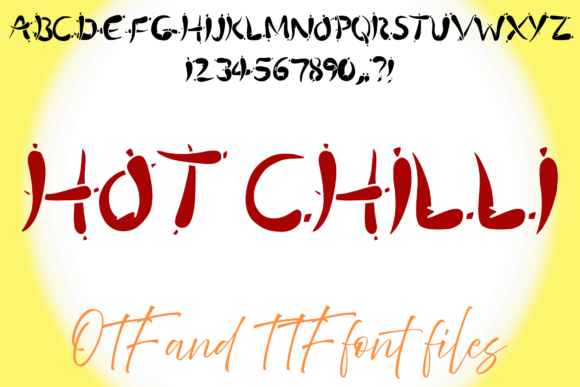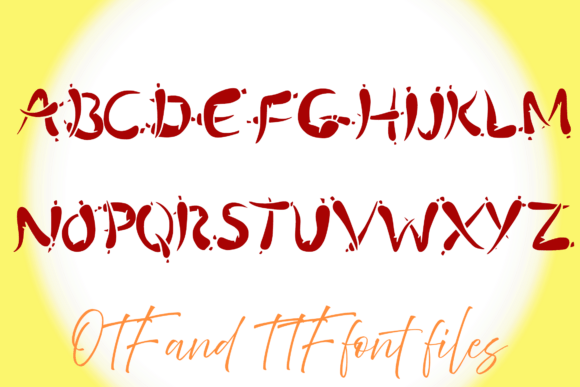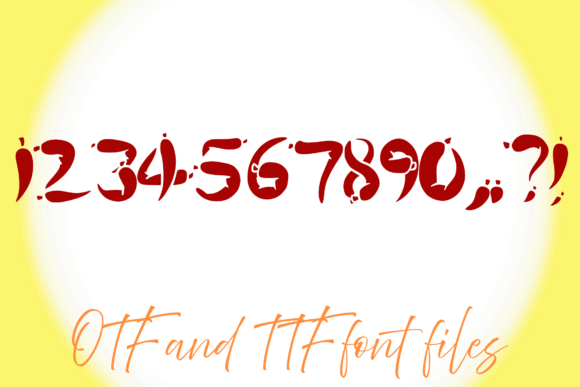
Hot Chilli Font
About the Hot Chilli Font
Explore the possibilities with Hot Chilli Font, a font that offers both beauty and functionality. 🔥 Hot Chilli is a sizzling display font inspired by the shape and heat of chili peppers. With its sharp tips, bold curves, and edgy design, this font brings spicy energy to your titles, food branding, posters, and anything that needs a flavorful kick. Ideal for culinary creatives, bold packaging, and fiery headlines. Available in OTF and TTF formats.
Hot Chilli excels as a display font for headlines, short impactful phrases, and logos where its bold, energetic personality shines. It’s perfect for projects needing a fiery, attention-grabbing aesthetic, such as food packaging, posters advertising events, and branding for companies with a spicy, rebellious edge. Avoid using it for body text or long paragraphs; its strong forms become visually overwhelming in extended use.
Pairing Hot Chilli with a clean sans-serif like Open Sans for body text provides a strong contrast, balancing its boldness with readability. For a more playful feel, a rounded geometric sans-serif could work well. If a more sophisticated look is needed, consider pairing it with a classic serif like Garamond for a touch of elegance.
Hot Chilli’s overall personality is bold, playful, and slightly rebellious; it’s a font for brands that aren’t afraid to stand out. It projects energy and confidence, making it ideal for conveying excitement and a sense of adventure.